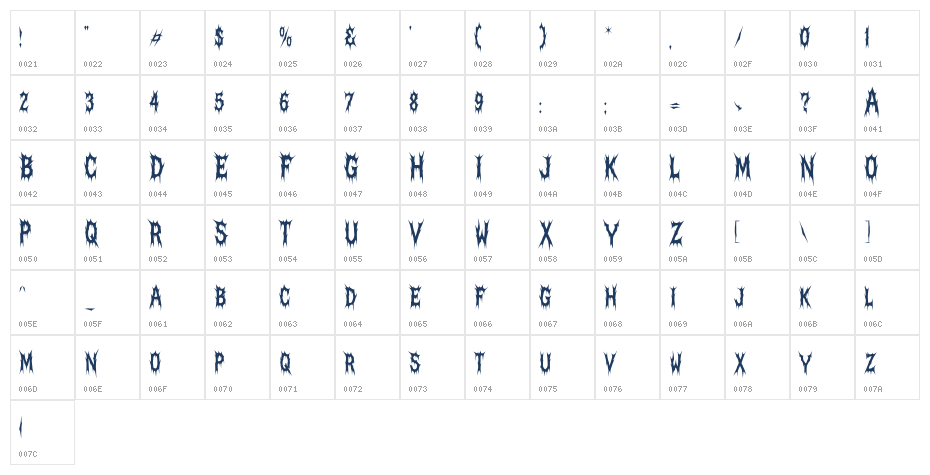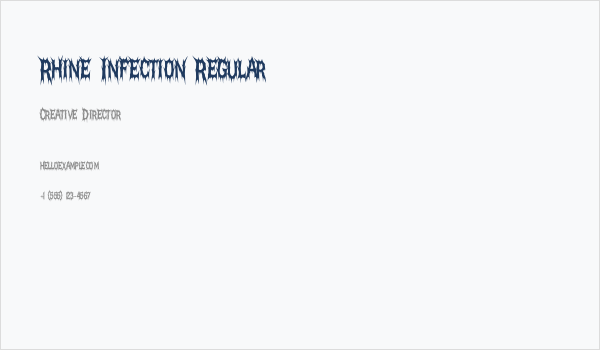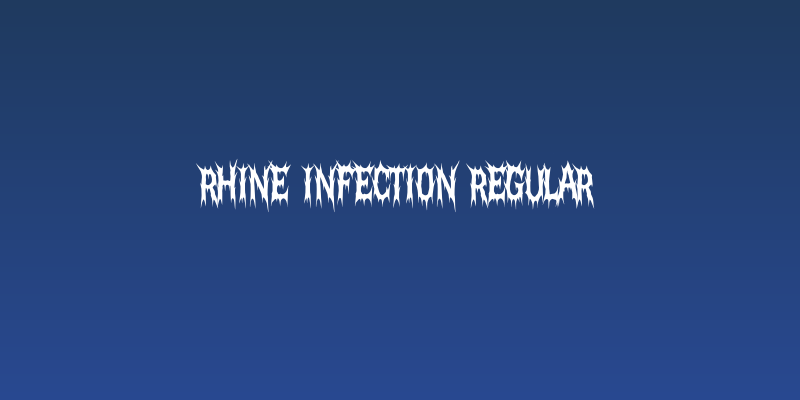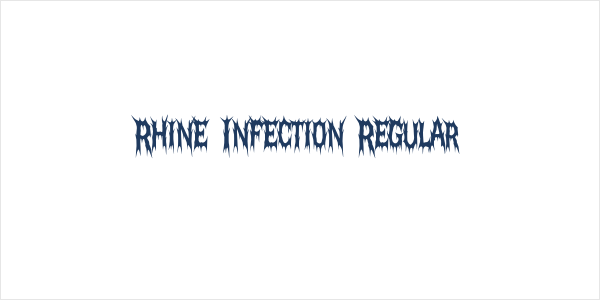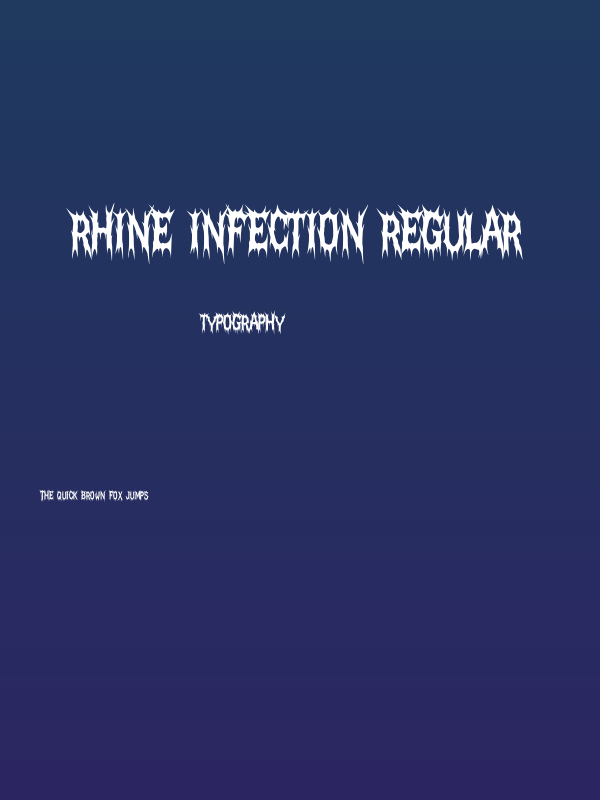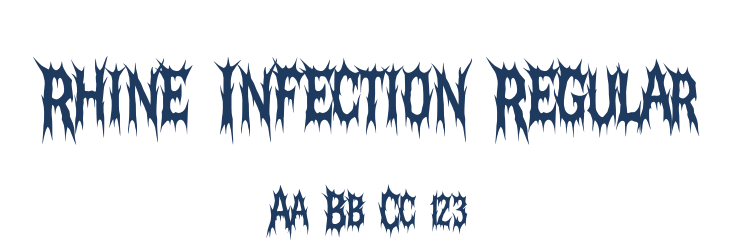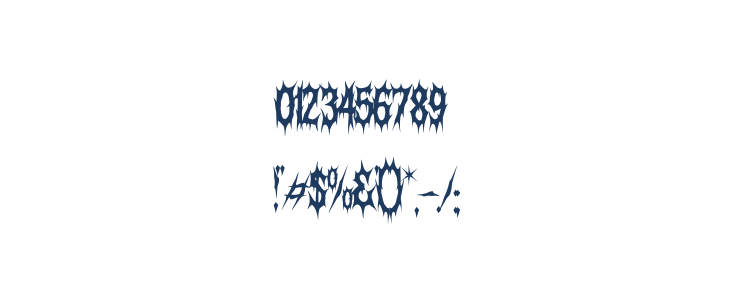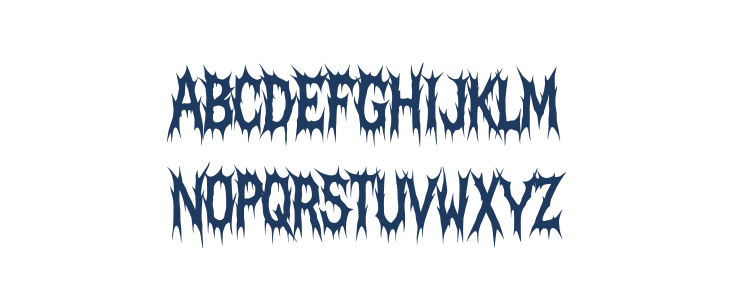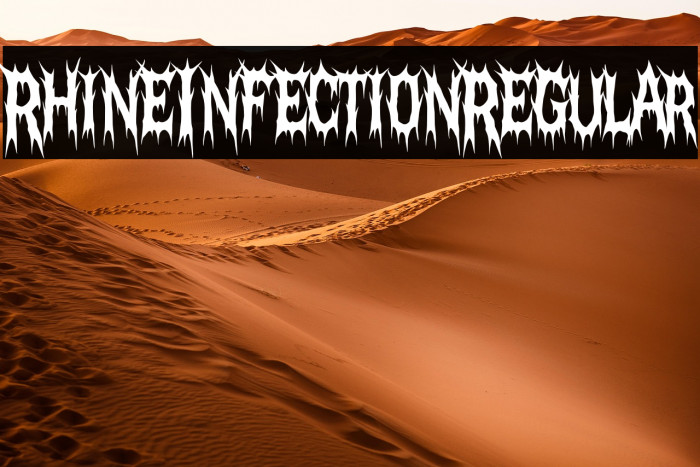
Rhine Infection Regular Font
Rhine Infection Regular Description
A jagged, spiky, horror-themed display font with irregular, sharp edges resembling torn or jagged material.
| Overall Style | Horror, Edgy, Distressed |
| Use Case | Headlines, Titles, Posters, Logos |